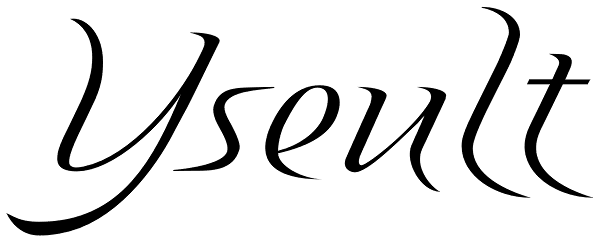
Yseult
Yseult is a ultra-romantic, elegant handwritten font, reminiscent of pre-Raphaelite beauties and classical paintings. It refers to the opera Tristan und Isolde (also spelt as Yseul, Isolda etc.) in three acts by Richard Wagner. The opera was based...